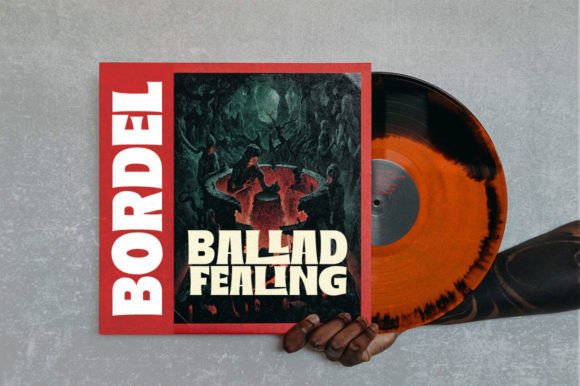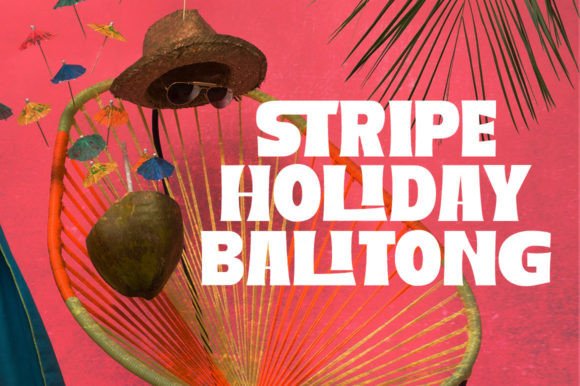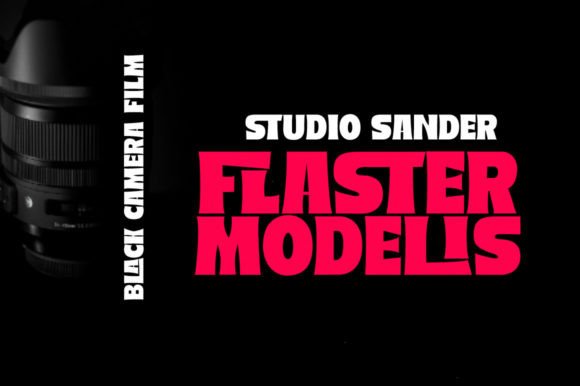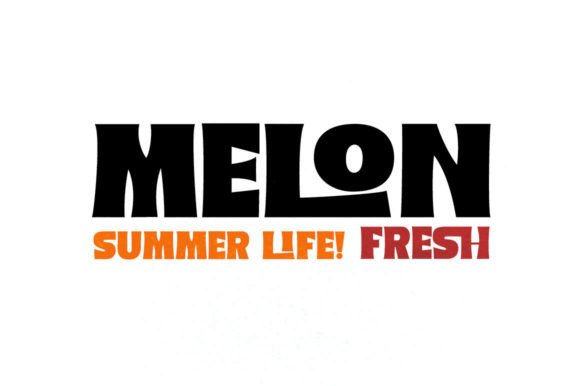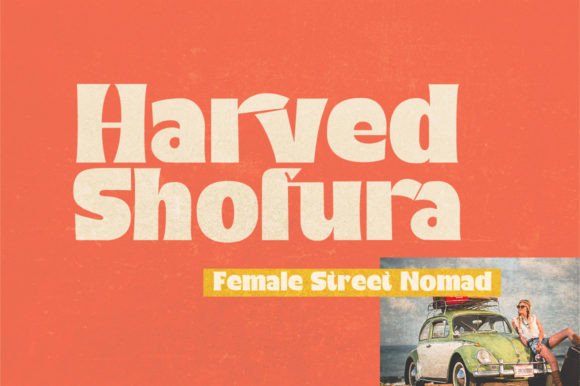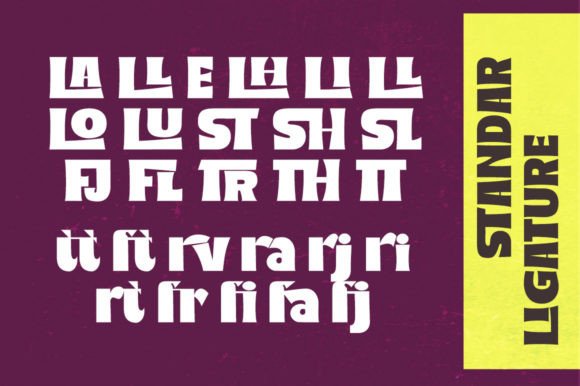
Introduction to Mister Luston Font
Mister Luston is a bold, retro display font with lots of ligatures and alternatives that will make your presentation or logo stand out.
This font will make your project look retro, chic and neat You can use this font for your posters, events or social media posts.